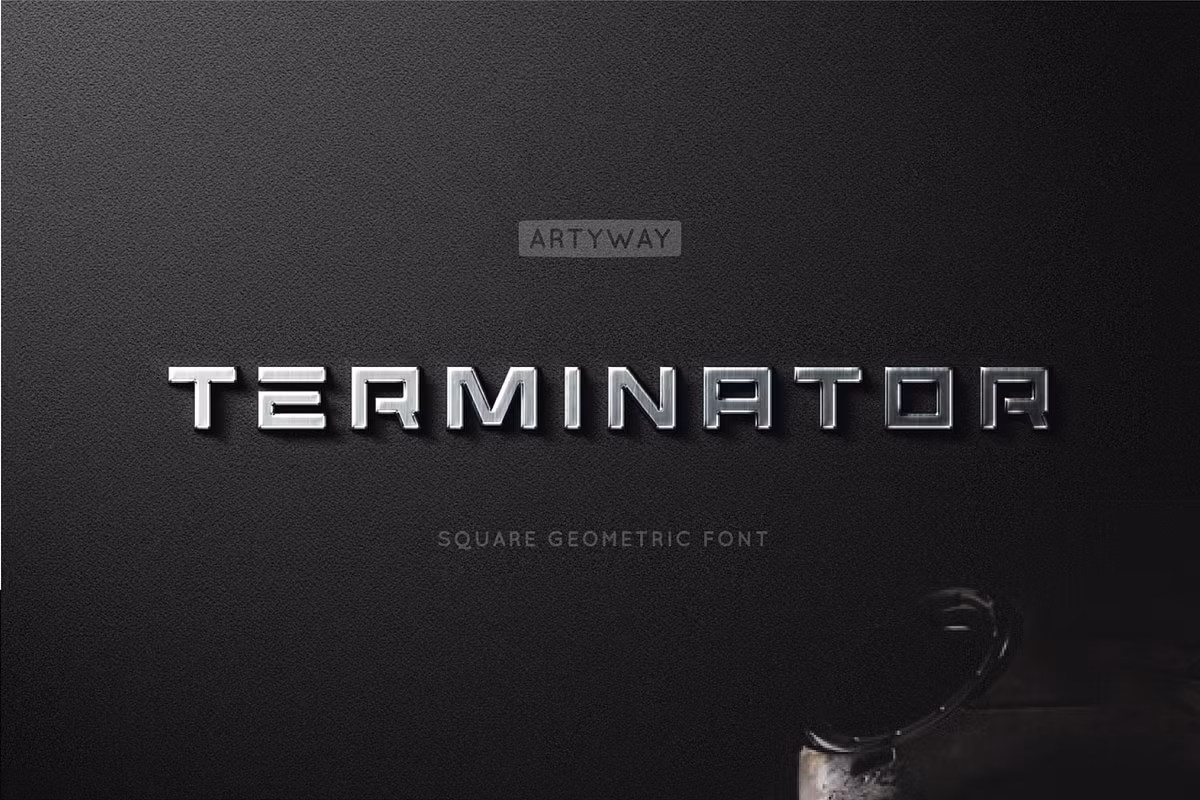
Terminator Headline Font Free Download is a bold, futuristic typeface inspired by sci-fi aesthetics and classic action movie titles. With its sharp angles, metallic vibe, and tech-forward style, Terminator Headline is perfect for posters, video game titles, movie trailers, digital artwork, and anything that demands a powerful, high-impact look.
Designed for maximum presence, Terminator Headline Font Free Download delivers a sleek, robotic edge that stands out in both digital and print formats. Whether you're working on a dystopian-themed graphic or a cutting-edge brand identity, this font brings a cinematic intensity that grabs attention instantly.